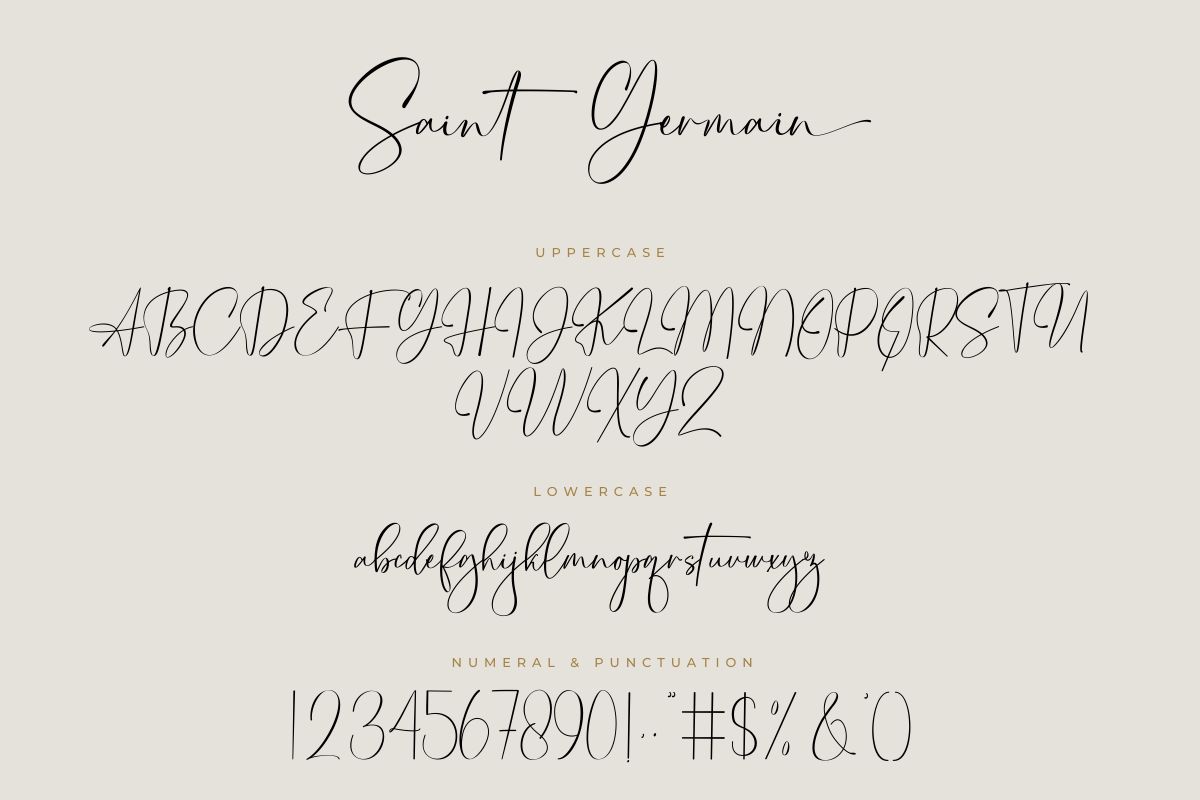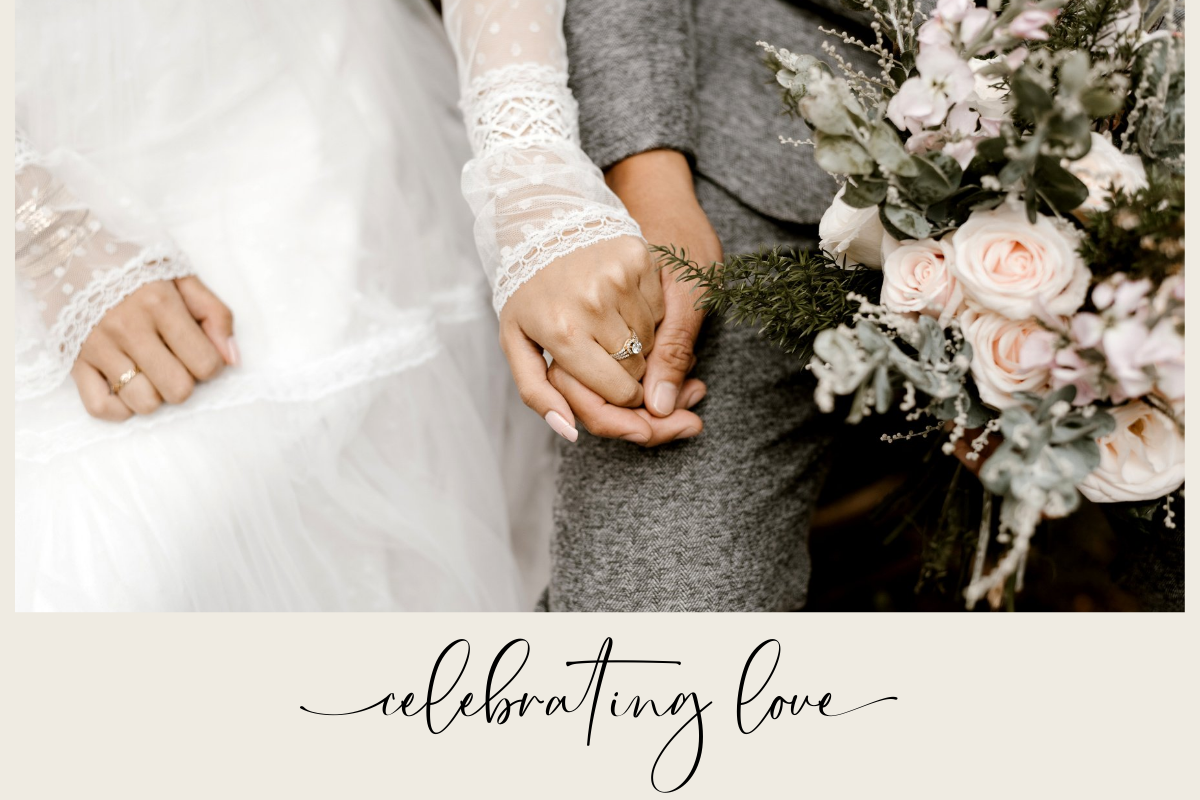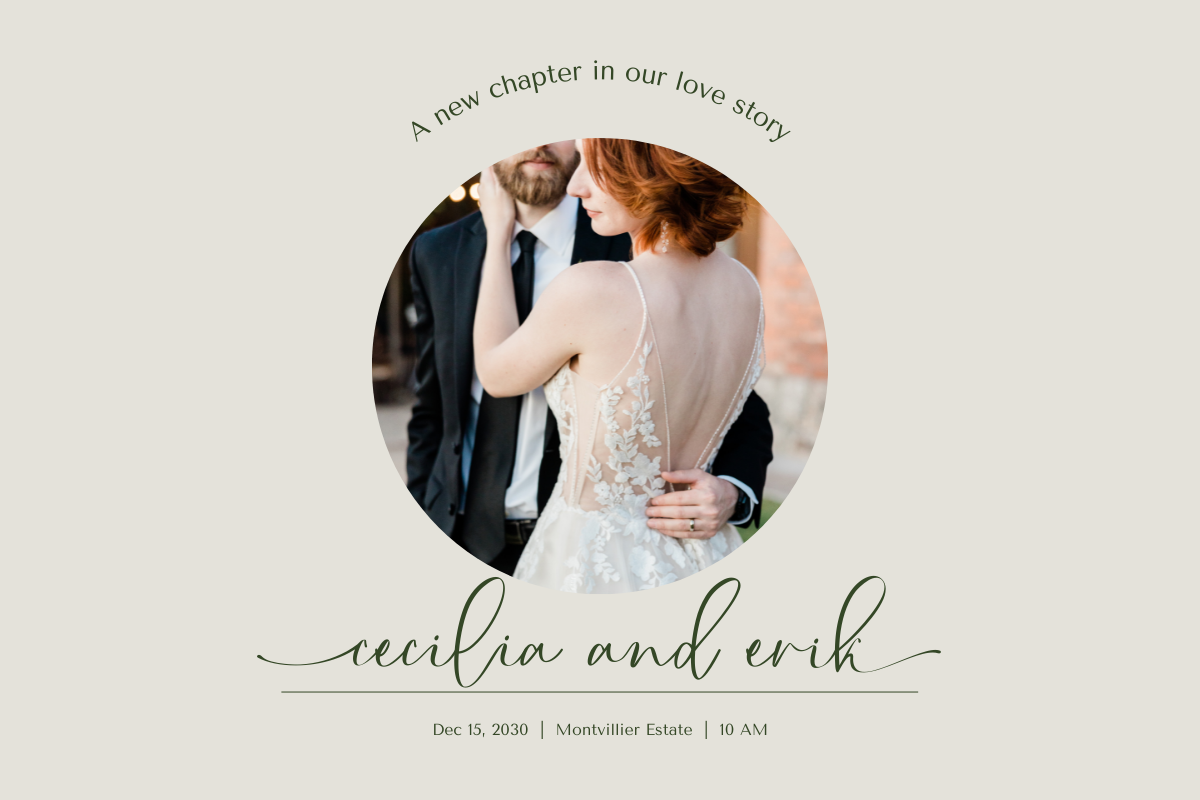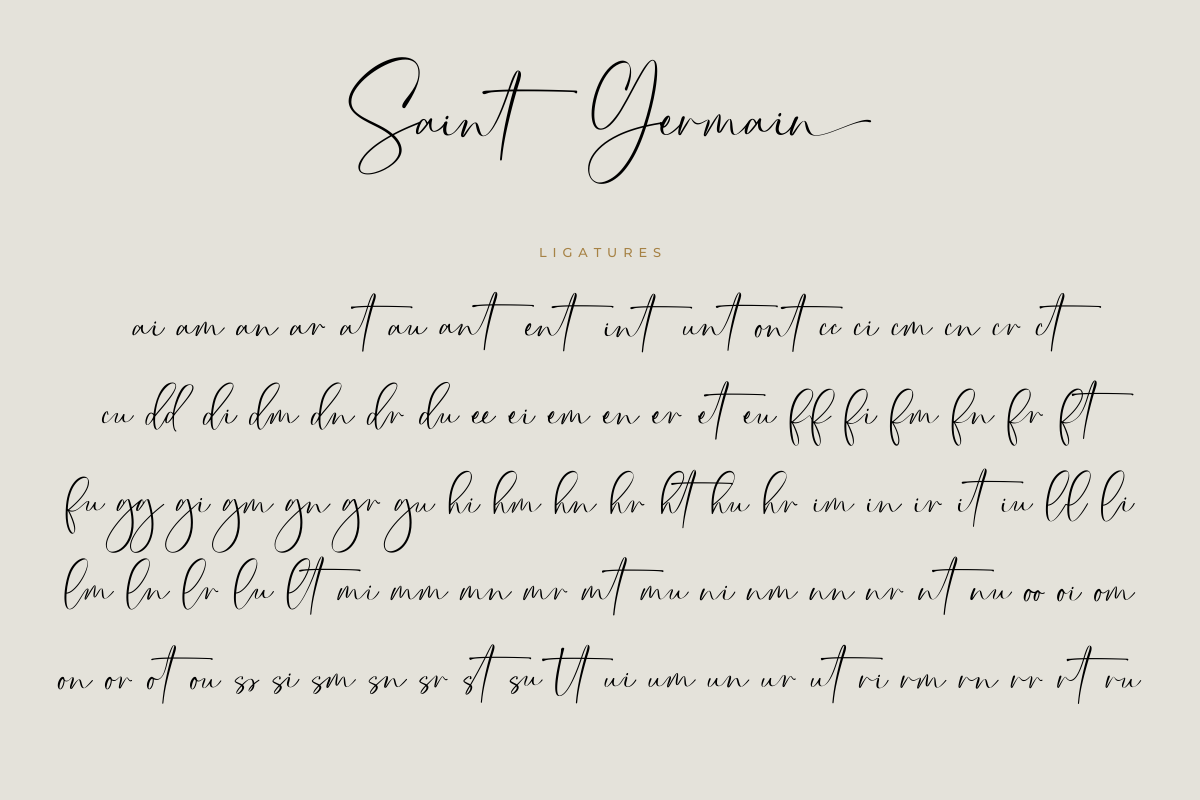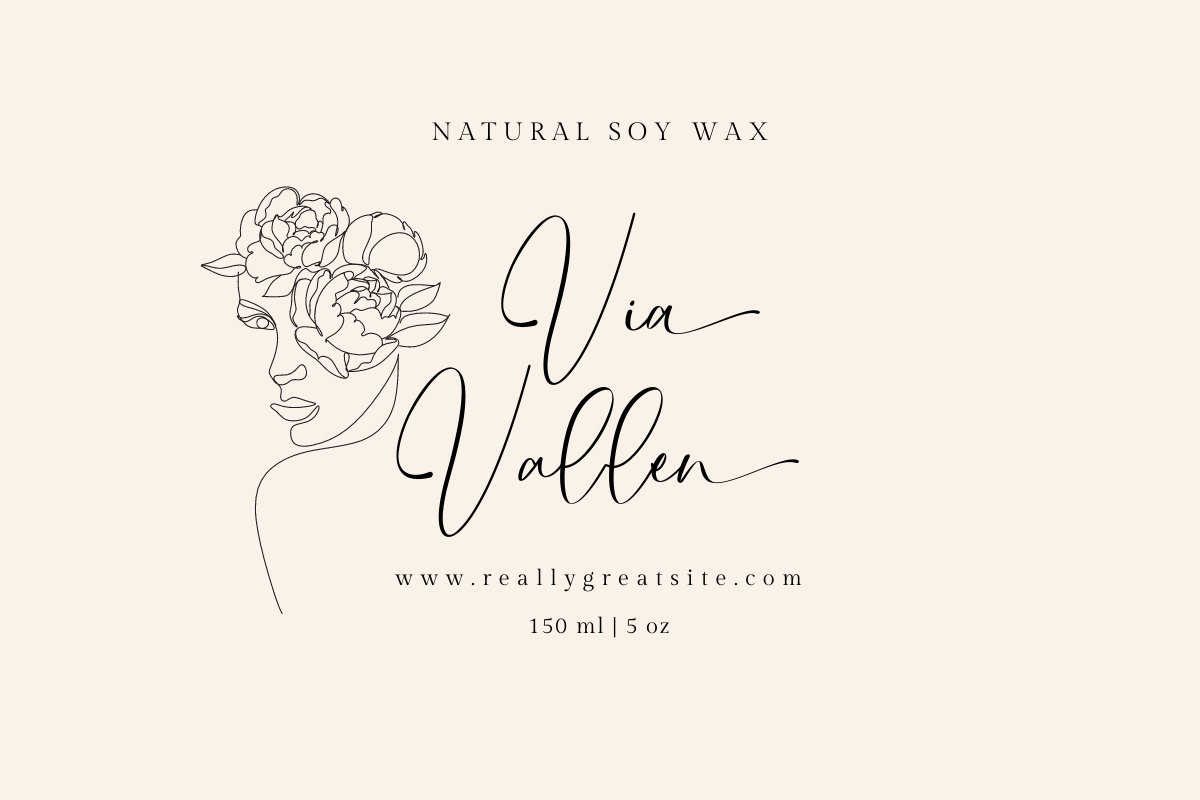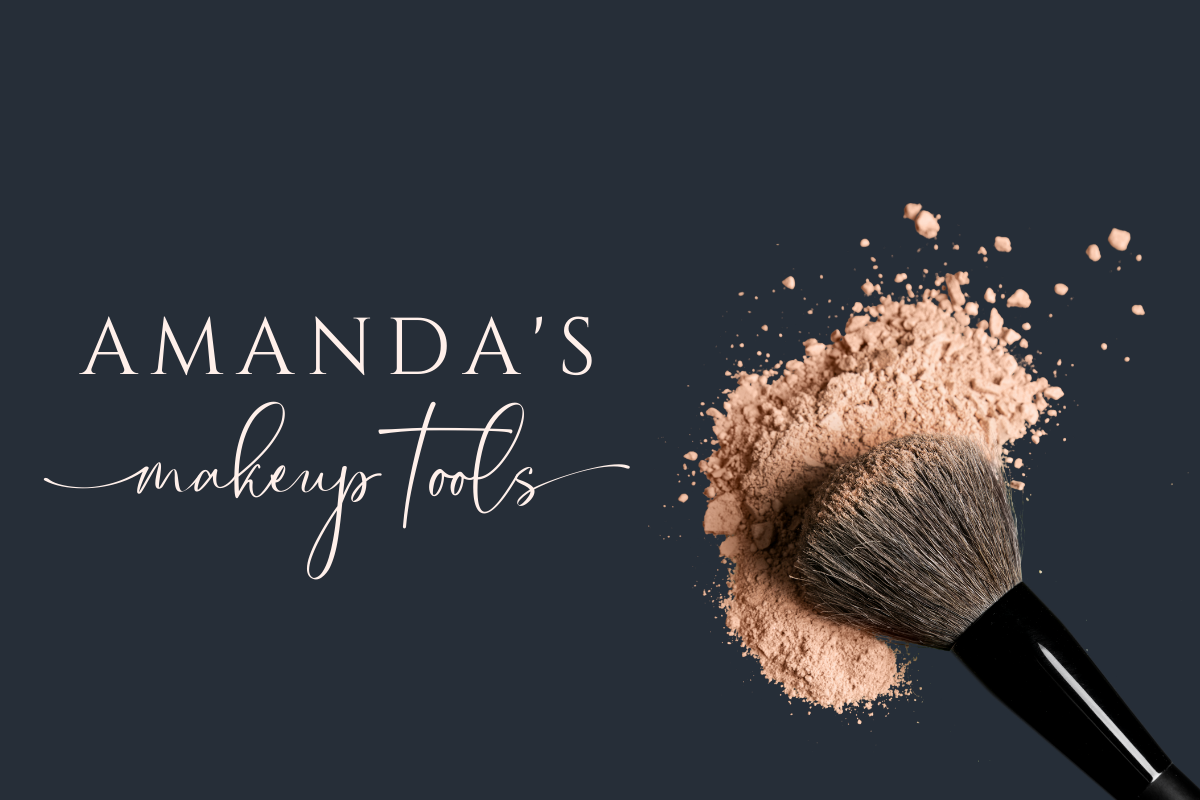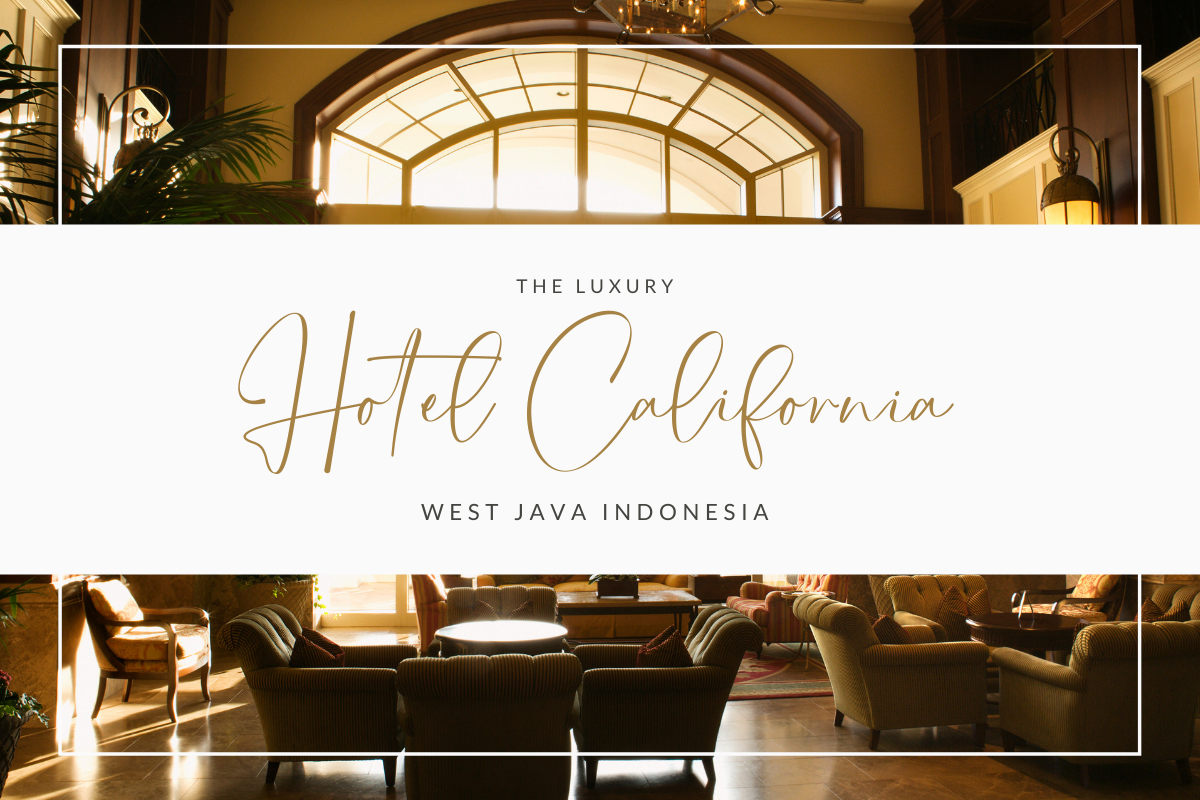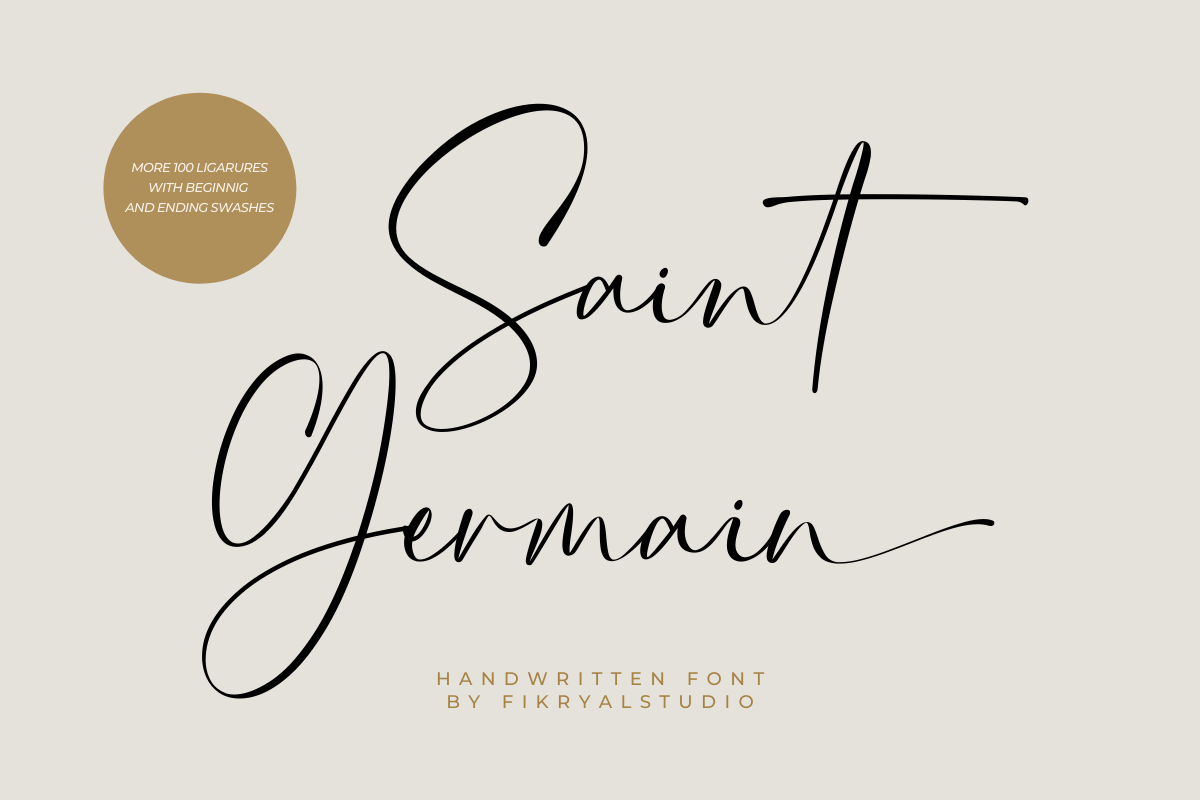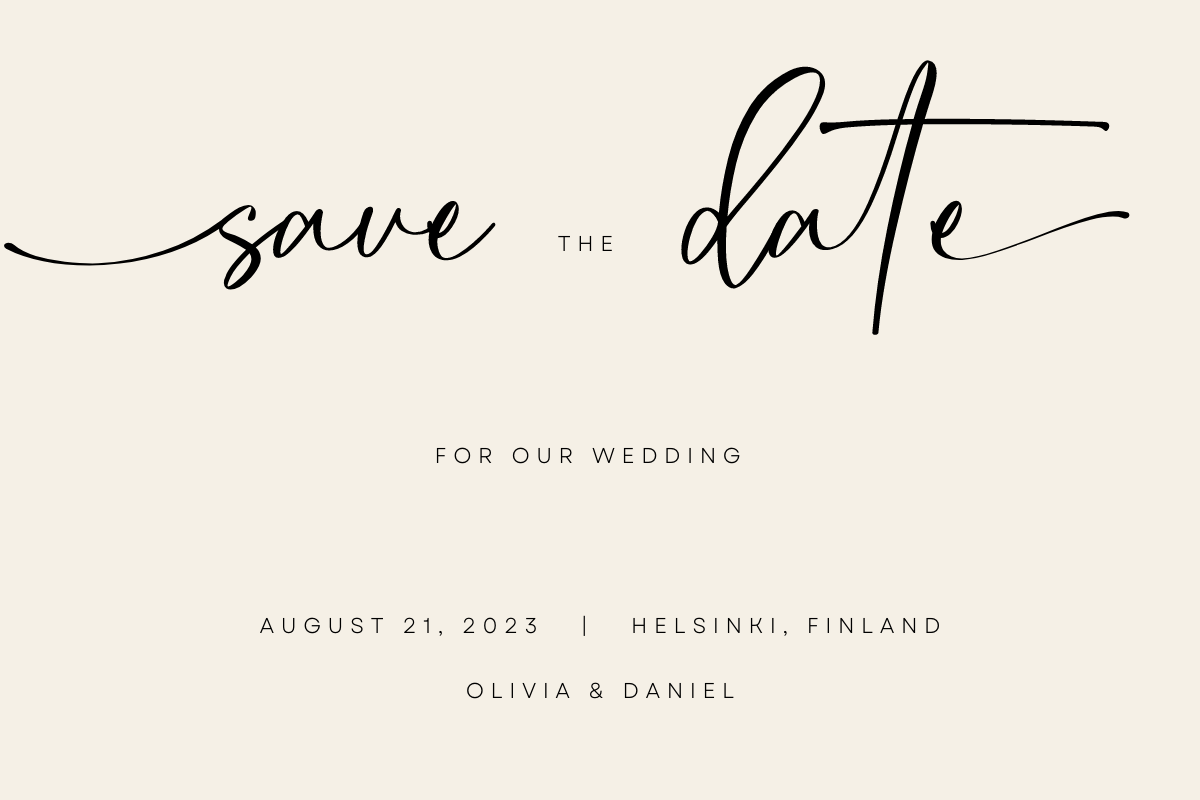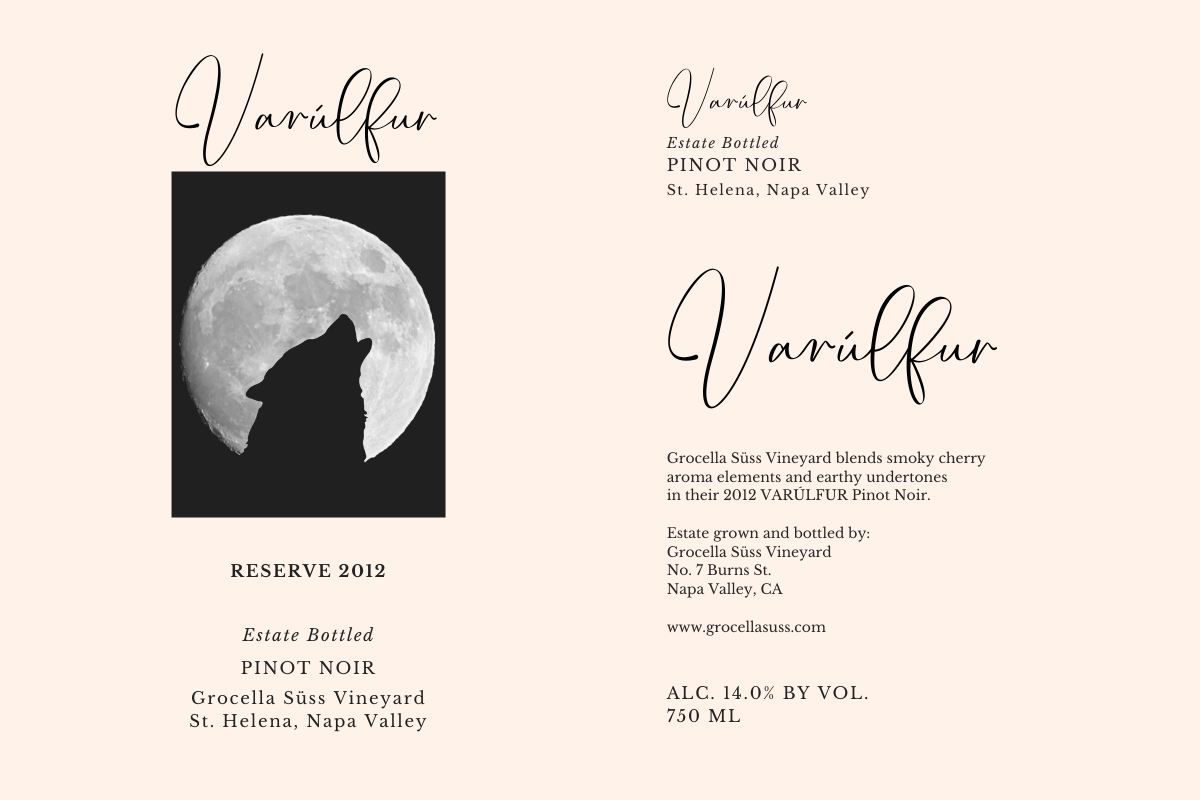
Saint Germain – Handwritten Font
Saint Germain – is a modern handwritten font. This font is made in a modern style, very casual, and suitable for your various design needs. It’s perfect for logo, branding, title, social media posts, advertisements, product packaging, product designs, label, photography, watermark, special event, magazine, web design, etc.
Saint Germain ( Uppercase, Lowercase ) multilingual support Ligatures Beginning & Ending Swashes If you have any questions please don’t hesitate to contact me